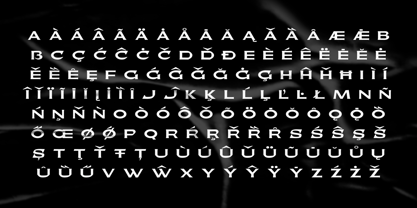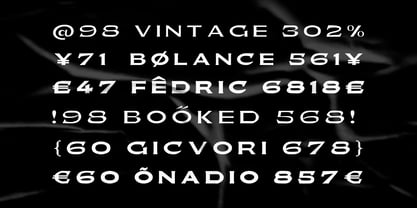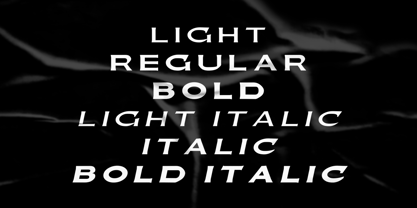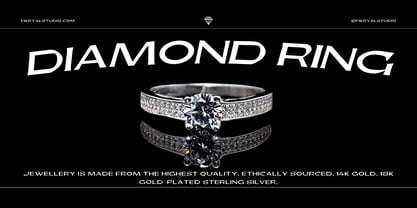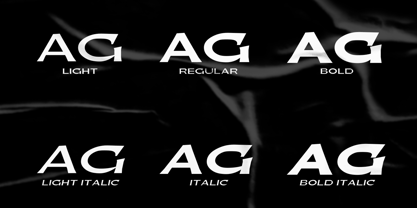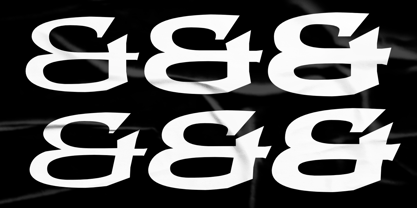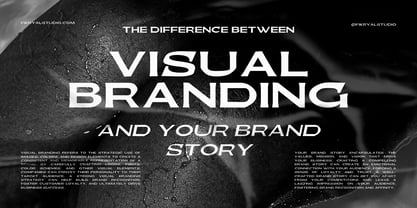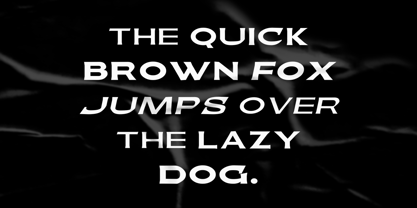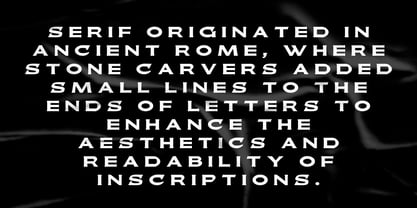
Bargum
by Fikryal
The Bargum Font Family was designed by Muhammad Fikry and published by Fikryal. Bargum contains 6 styles and family package options.
Bargum is an elegant display serif font family designed to bring timeless sophistication to your creative projects. Featuring six styles—Light, Light Italic, Regular, Italic, Bold, and Bold Italic—this font family is ideal for projects that demand a refined and professional touch.
With its stylish serif details and classic proportions, Bargum is perfect for branding, editorial layouts, wedding invitations, and luxury designs. Whether you’re crafting print materials, creating digital experiences, or designing for fashion and lifestyle brands, Bargum offers the versatility and elegance to make your projects stand out.
Key Features:
• Six styles: Light, Light Italic, Regular, Italic, Bold, and Bold Italic.
• Extensive multilingual support for global use.
• Perfect for print and digital designs, including branding, editorial, and invitations.
Transform your creative work with Bargum—the elegant serif font that exudes timeless charm and professionalism.
Designers: Muhammad Fikry
Publisher: Fikryal
Foundry: Fikryal